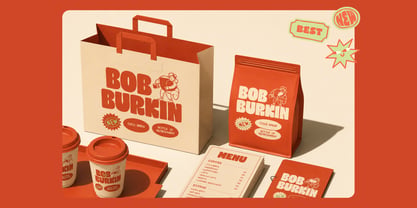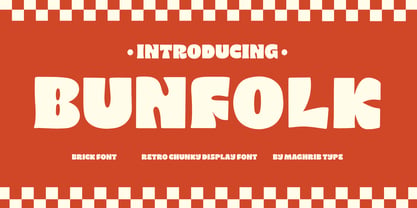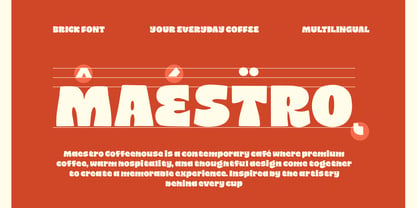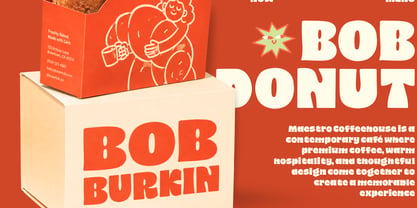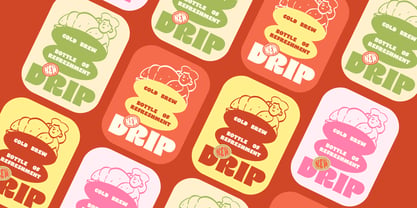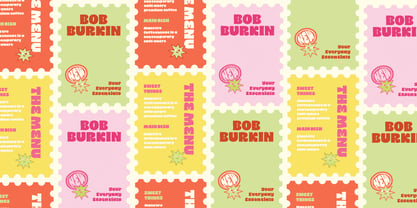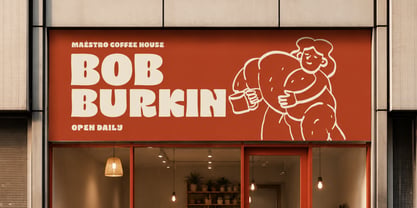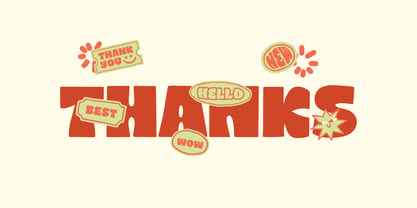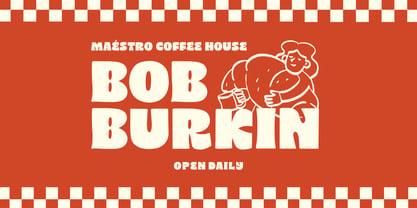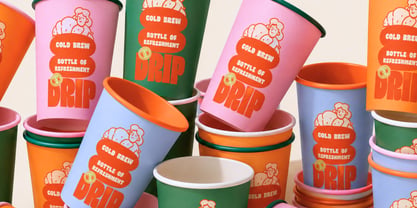
Bunfolk Bold
Die Schriftfamilie Bunfolk Bold wurde von Rizky Setyaludin entworfen und von Maghrib Type veröffentlicht. Bunfolk Bold enthält 1 Stile. Mehr über diese Familie
Bunfolk Bold is a cheerful retro display font inspired by classic burger diners, cozy coffee houses, vintage bakeries, and nostalgic food branding. Featuring chunky letterforms, soft rounded corners, and playful organic curves, this font delivers a warm handcrafted personality that instantly brings designs to life.
Designed to capture the charm of old-school cafés and neighborhood burger joints, Bunfolk Bold creates bold headlines with a friendly and approachable feel. Its thick, eye-catching shapes make every word stand out while maintaining excellent readability, making it perfect for branding and packaging projects.
Whether you're designing a burger logo, coffee cup, café menu, artisan bakery packaging, food truck branding, restaurant signage, or retro promotional posters, Bunfolk Bold adds a delicious vintage flavor to your typography.